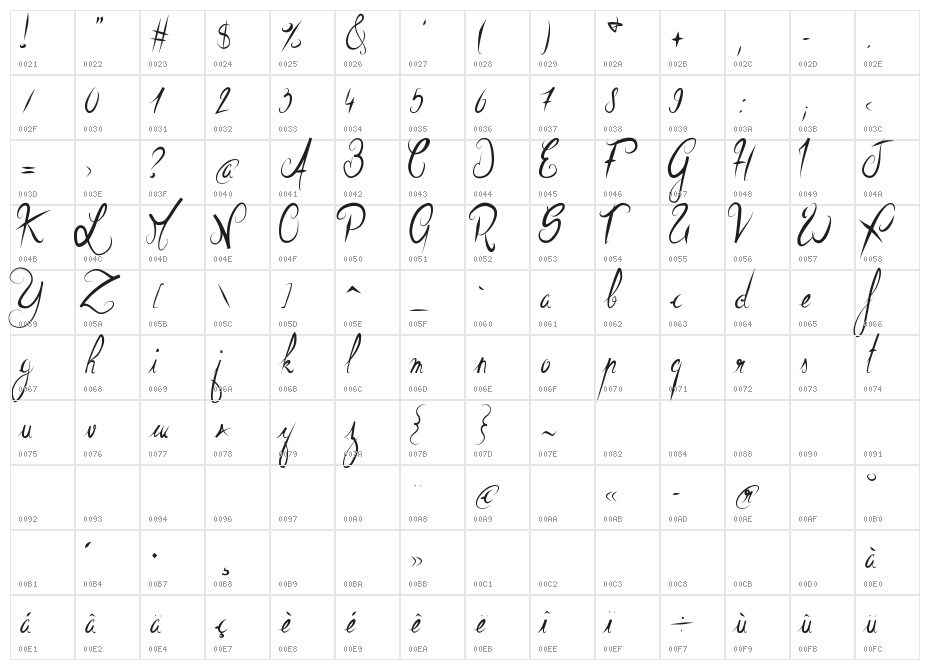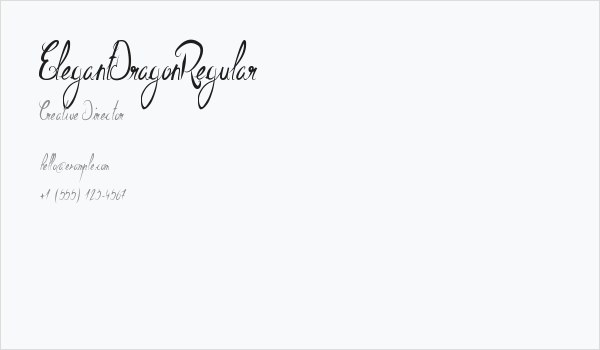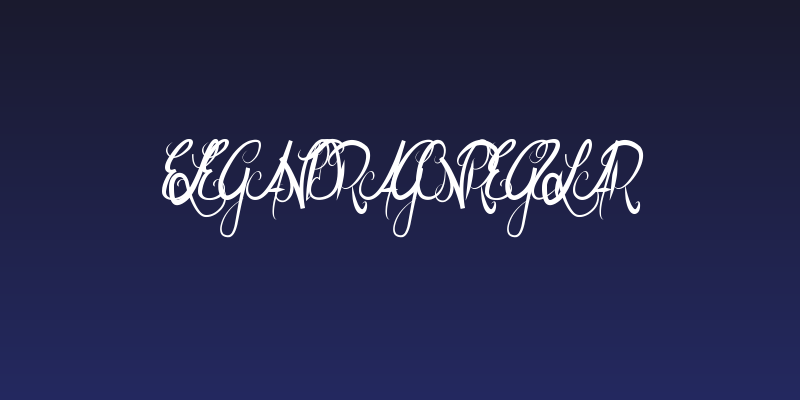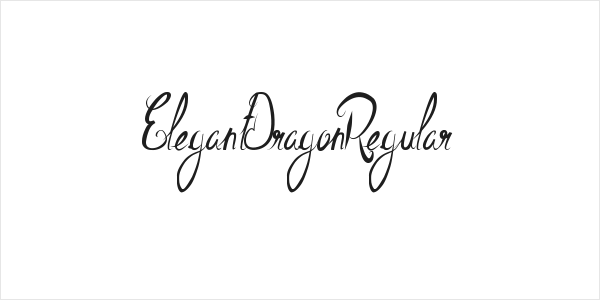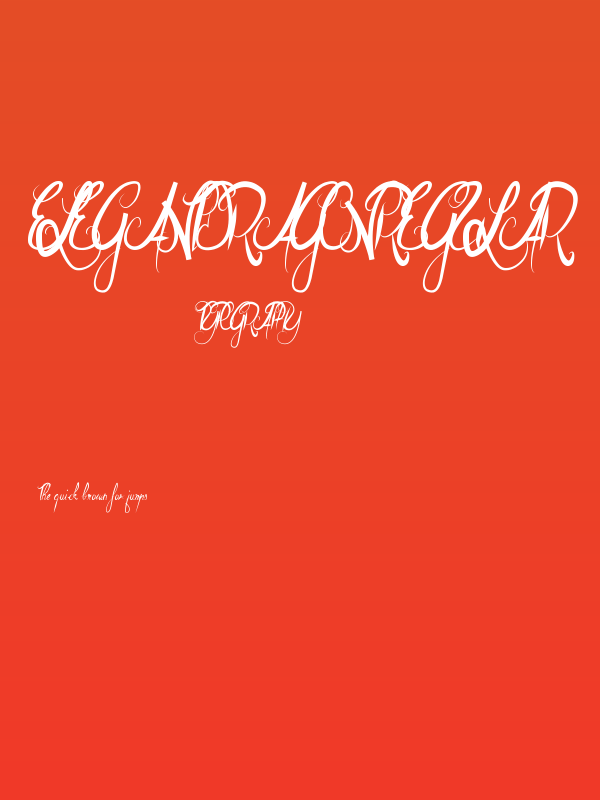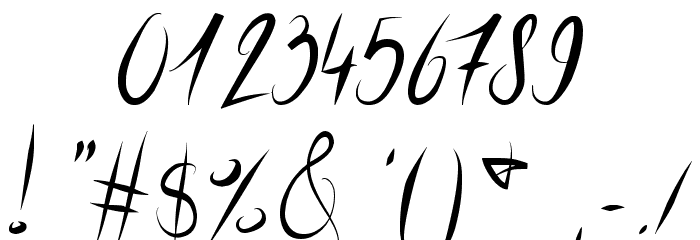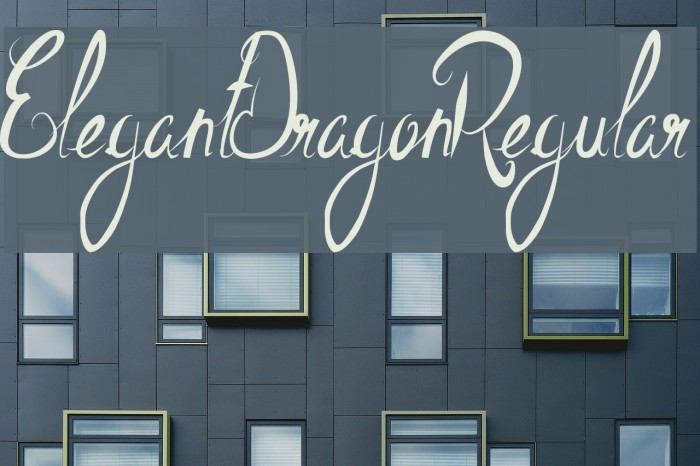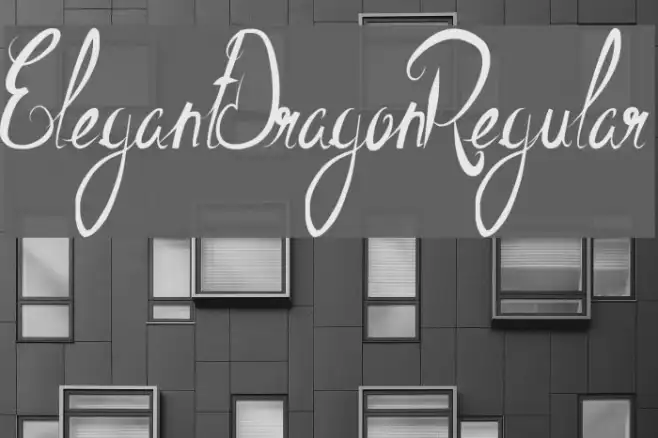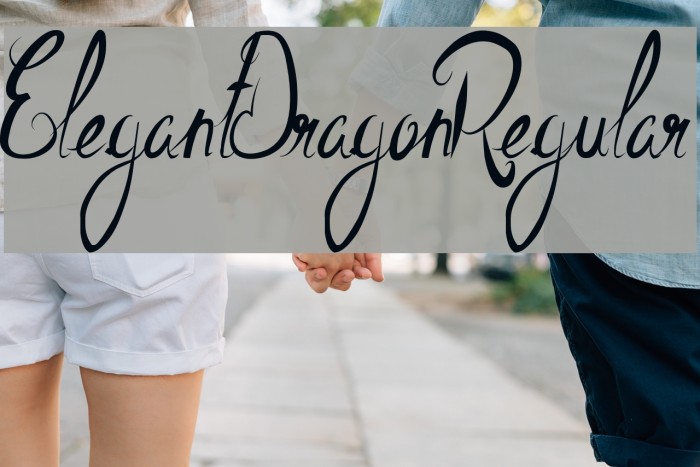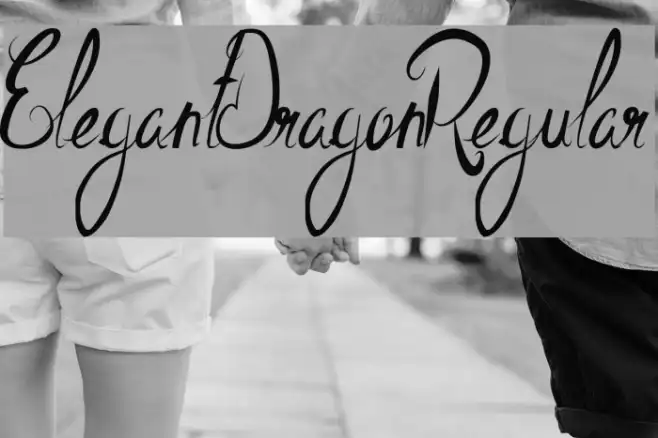
ElegantDragonRegular Font
ElegantDragonRegular Description
This font exudes a sense of elegance and sophistication with its flowing, cursive style. The characters are intricately designed with sweeping curves and flourishes, giving it a highly decorative appearance. The uppercase letters are particularly elaborate, featuring extended strokes and loops that add a dramatic flair. The lowercase letters maintain a consistent style, with smooth connections between characters that enhance readability despite the ornate design. The numerals and special characters are equally stylized, ensuring a cohesive look across all text elements. This font is ideal for projects that require a touch of luxury and refinement.
| Use Case | Logos, Invitations, Headlines |
| Proposed Projects | Wedding invitations, luxury branding, high-end product packaging, elegant event posters. |